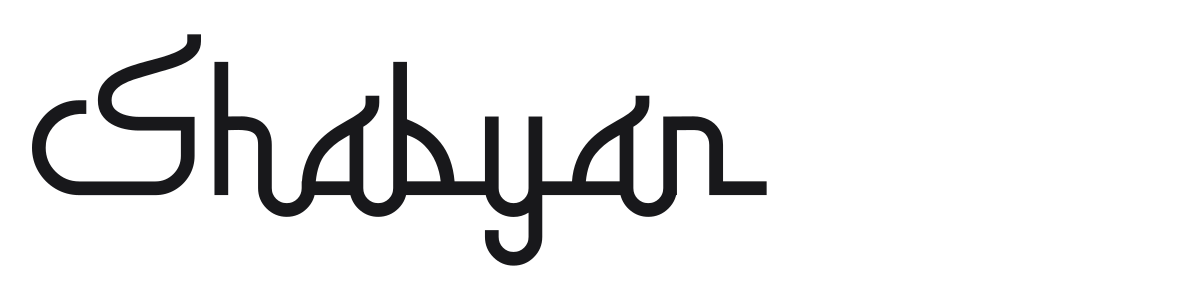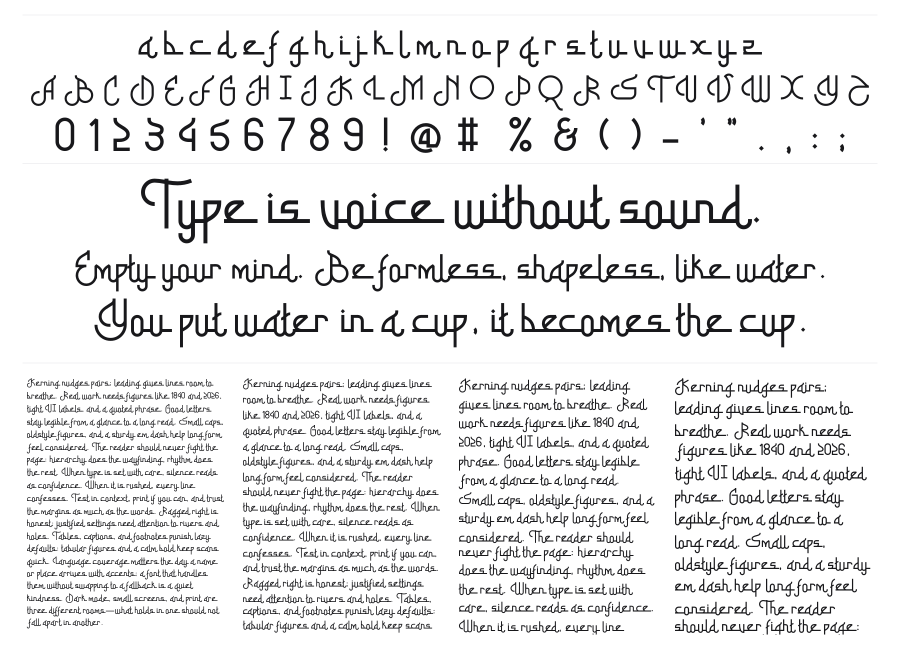
Shabyan
Shabyan is a Latin display font built entirely around Arabic calligraphic structure, with characters that flow and connect like handwritten Arabic script. The strokes loop and link continuously, giving words a ribbon-like, almost illegible beauty at first glance. It brings a strong sense of cultural fusion and makes an immediate visual statement in logos, posters, and editorial headers.